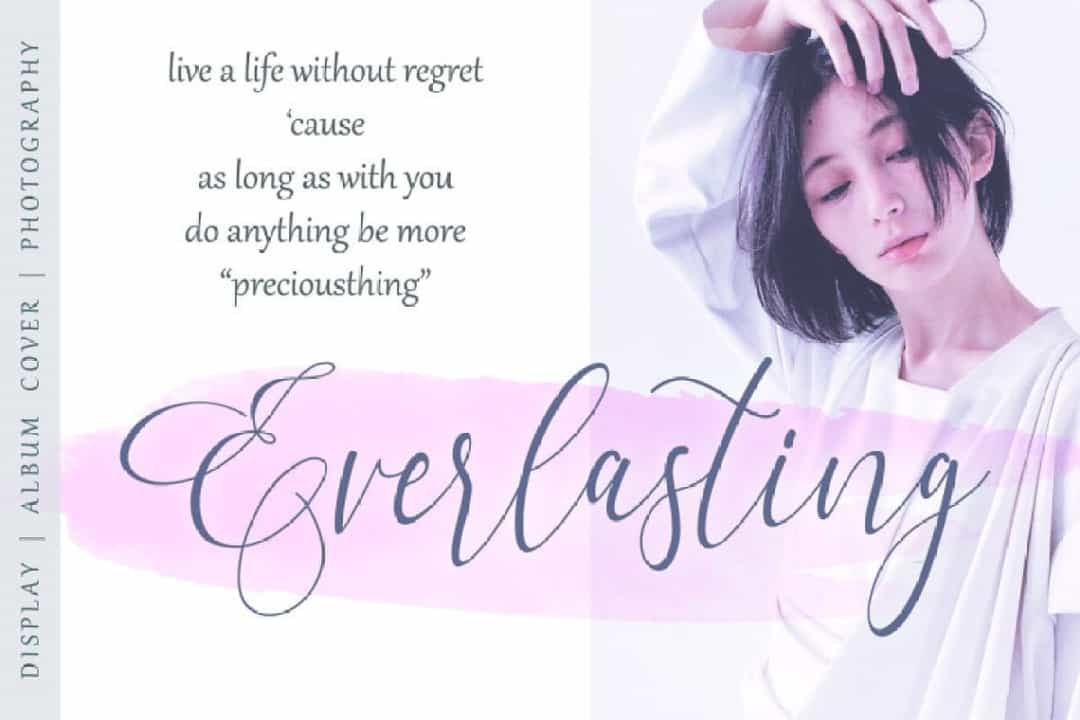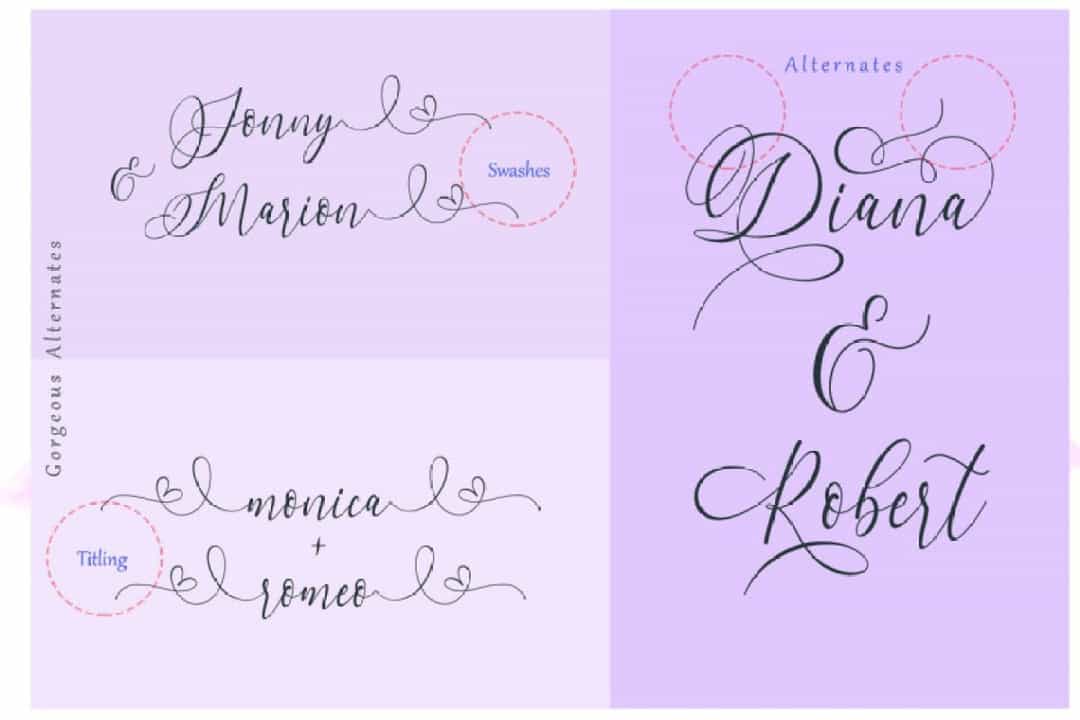
Introducing Dialova Font. Dialova was created and shared by Aldedesign. This is a classy script font with elegant swash, titling and alternates. Besides, this font is also simple to apply. this font has the touch of elegance and modernity for your designs or branding, it can be used for different purposes such as headings, signature, logos, wedding invitation etc.